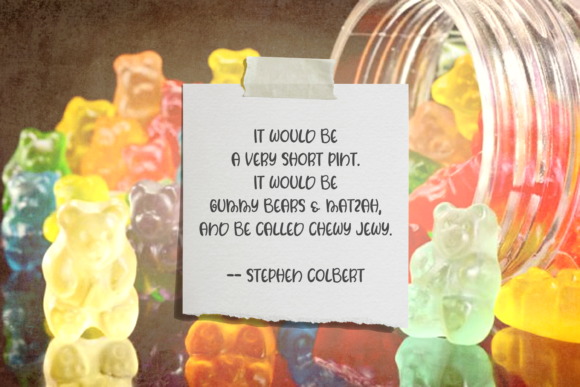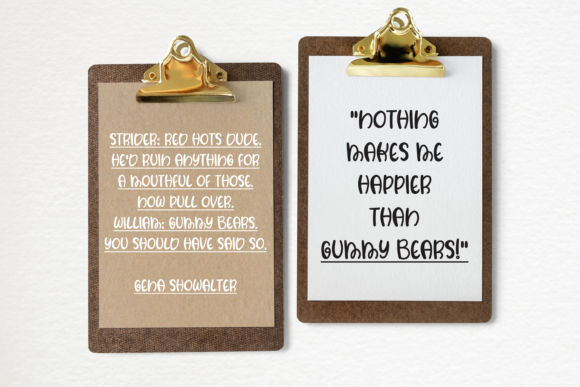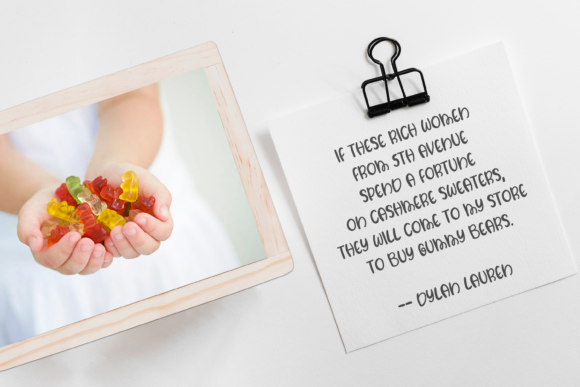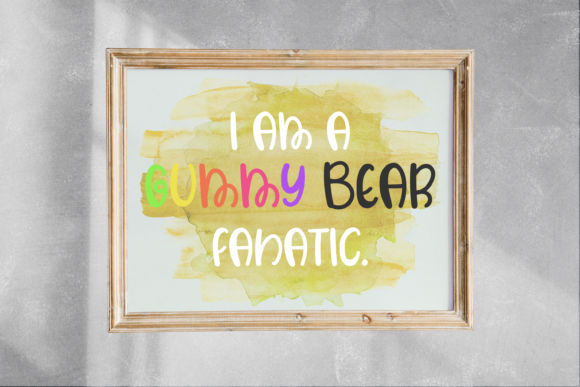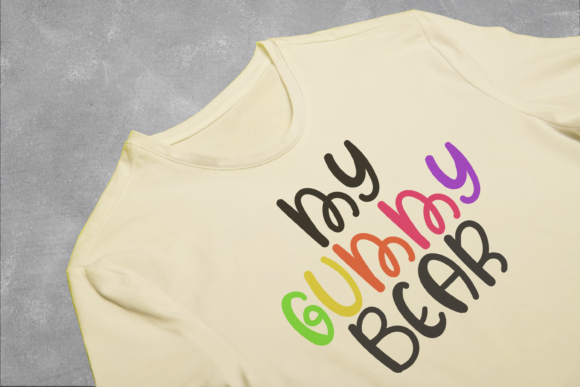
Gummy Bear Font: The Sweetest Addition to Your Design Projects
Are you looking for a font that can add a touch of playfulness and sweetness to your design projects? Look no further than the Gummy Bear Font! This adorable handwritten font is sure to inspire your creativity and make your designs stand out. In this article, we’ll dive into the features and benefits of the Gummy Bear Font, and explore how you can use it to take your designs to the next level.
What is Gummy Bear Font?
Gummy Bear Font is a sweet and cute handwritten font that is perfect for designers and crafters who want to add a playful touch to their projects. This all-caps font is designed to be incredibly playful, making it ideal for a wide range of design applications, from children’s party invitations to social media graphics and more.
Key Features of Gummy Bear Font
- All-Caps Font: Gummy Bear Font is an all-caps font, which means it’s perfect for creating bold and eye-catching designs.
- Playful Feel: The font has an incredibly playful feel, making it perfect for designs that require a touch of whimsy and fun.
- English Language Support: Gummy Bear Font offers support for all characters of the English language, making it easy to use for a wide range of design projects.
- Numbers and Punctuation: The font includes numbers and standard punctuation glyphs, making it a versatile choice for designers.
Benefits of Using Gummy Bear Font
So why should you choose Gummy Bear Font for your design projects? Here are just a few benefits of using this adorable font:
- Adds a Touch of Whimsy: Gummy Bear Font adds a touch of whimsy and playfulness to any design project, making it perfect for designers who want to create fun and engaging designs.
- Easy to Read: The font is easy to read, even in large and small sizes, making it perfect for a wide range of design applications.
- Versatile: Gummy Bear Font is a versatile choice that can be used for a wide range of design projects, from children’s party invitations to social media graphics and more.
How to Use Gummy Bear Font in Your Design Projects
Using Gummy Bear Font in your design projects is easy! Here are a few tips to get you started:
- Pair it with Other Fonts: Gummy Bear Font pairs well with other fonts, making it easy to create unique and interesting typography combinations.
- Use it for Headings: The font is perfect for headings and titles, making it a great choice for designers who want to add a touch of playfulness to their designs.
- Add it to Your Social Media Graphics: Gummy Bear Font is a great choice for social media graphics, making it easy to add a touch of whimsy and fun to your social media posts.
Design Project Ideas Using Gummy Bear Font
Need some inspiration for your design projects? Here are a few ideas to get you started:
- Children’s Party Invitations: Gummy Bear Font is perfect for children’s party invitations, making it easy to create fun and engaging designs.
- Social Media Graphics: The font is a great choice for social media graphics, making it easy to add a touch of whimsy and fun to your social media posts.
- Crafting Projects: Gummy Bear Font is a great choice for crafting projects, such as scrapbooking and card making.
In conclusion, Gummy Bear Font is a sweet and cute handwritten font that is perfect for designers and crafters who want to add a playful touch to their projects. With its incredibly playful feel, English language support, and versatility, this font is sure to inspire your creativity and make your designs stand out. Whether you’re working on a children’s party invitation, social media graphic, or crafting project, Gummy Bear Font is a great choice. So why wait? Download Gummy Bear Font today and start creating!